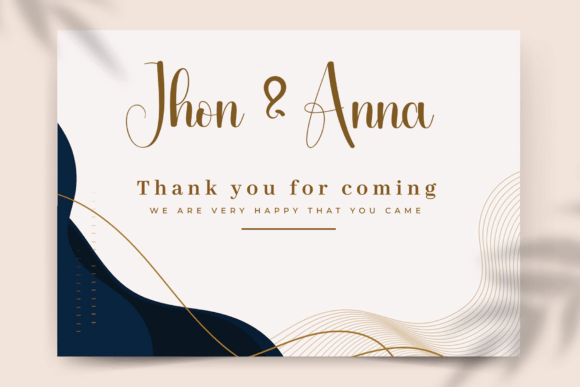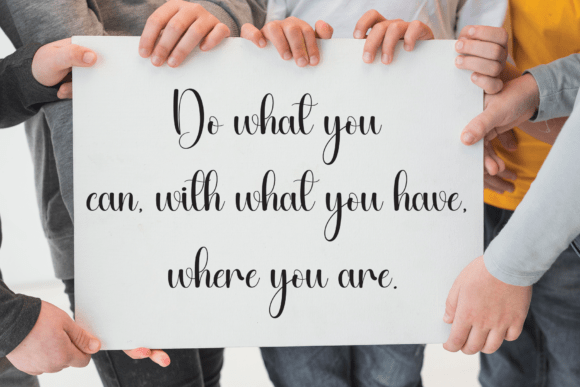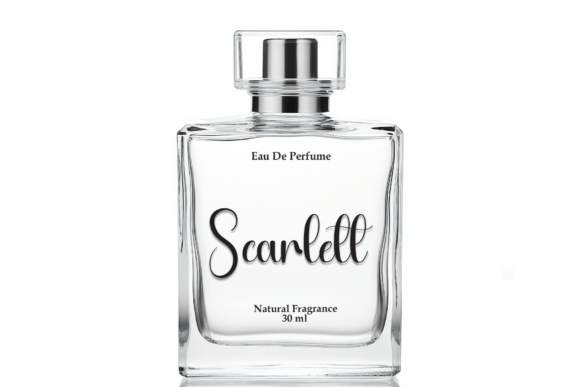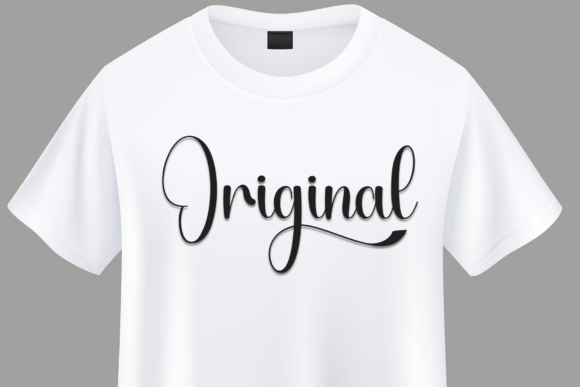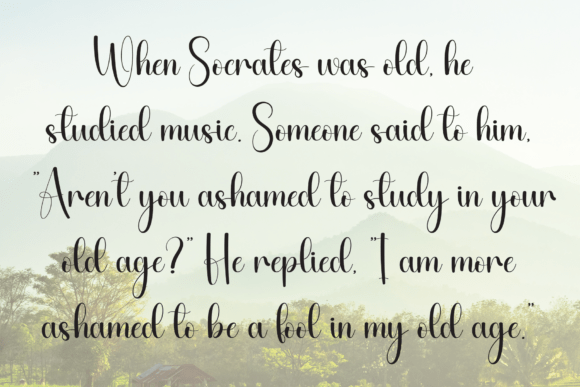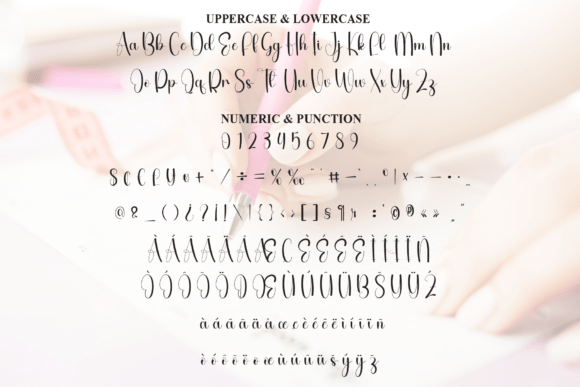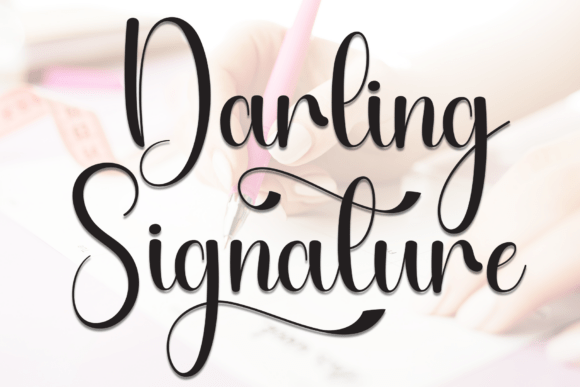
Introducing Darling Signature Font: The Ultimate Choice for Adding a Personal Touch
Are you looking for a font that can instantly elevate your creative projects with a dash of personality and charm? Look no further than the Darling Signature Font, a beautiful handwritten display font that is sure to capture the hearts of designers and crafters alike. With its sweet and playful aesthetic, this font is perfect for crafting stunning wedding invitations, heartwarming cards, and a wide range of designs where a touch of fun and whimsy is needed.
The Essence of Lighthearted Elegance
Darling Signature Font embodies the perfect blend of lighthearted elegance and sophistication, making it an ideal choice for designers who want to add a personal touch to their projects. This font effortlessly infuses life and character into your designs, giving them a unique and inviting flair that is sure to leave a lasting impression. Whether you’re working on a wedding invitation, a greeting card, or a social media graphic, this font is sure to bring a smile to your audience’s faces.
A Font that Shines in Creativity
One of the standout features of Darling Signature Font is its ability to shine in a variety of creative applications. From wedding planners and stationery designers to social media influencers and crafters, this font is perfect for anyone who wants to add a touch of whimsy and fun to their designs. Here are just a few ways you can use Darling Signature Font to take your projects to the next level:
- Wedding Invitations: Create stunning wedding invitations that set the tone for a beautiful and memorable day. With Darling Signature Font, you can add a touch of elegance and sophistication to your wedding stationery.
- Greeting Cards: Design heartwarming greeting cards that will make your loved ones feel special. This font is perfect for creating birthday cards, anniversary cards, and get-well cards that are sure to bring a smile to the recipient’s face.
- Social Media Graphics: Add a touch of personality to your social media graphics with Darling Signature Font. Whether you’re creating a Facebook post, an Instagram story, or a Twitter header, this font is sure to make your content stand out.
- Branding and Packaging: Use Darling Signature Font to create custom branding and packaging that reflects your brand’s personality. This font is perfect for businesses that want to add a touch of whimsy and fun to their branding.
The Unique Mix of Spontaneity and Sophistication
Darling Signature Font is more than just a font – it’s an experience. With its unique mix of spontaneity and sophistication, this font comes alive with each stroke, giving your designs a sense of movement and energy. The font’s handwritten aesthetic gives it a personal and intimate feel, making it perfect for designs where you want to connect with your audience on a deeper level.
Why Choose Darling Signature Font?
So why choose Darling Signature Font over other fonts on the market? Here are just a few reasons why designers and crafters love this font:
- Unique and Eye-Catching: Darling Signature Font is a one-of-a-kind font that is sure to grab attention. Its unique aesthetic makes it perfect for designs where you want to stand out from the crowd.
- Easy to Read: Despite its playful and whimsical aesthetic, Darling Signature Font is easy to read, making it perfect for designs where you need to communicate a message.
- Versatile: This font is incredibly versatile, making it perfect for a wide range of creative applications.
- High-Quality: Darling Signature Font is a high-quality font that is designed to deliver exceptional results.
Get Ready to Fall in Love with Darling Signature Font
If you’re looking for a font that can add a touch of personality and charm to your designs, look no further than Darling Signature Font. With its sweet and playful aesthetic, this font is sure to capture the hearts of designers and crafters alike. So why wait? Download Darling Signature Font today and experience the unique mix of spontaneity and sophistication that comes alive with each stroke!
In conclusion, Darling Signature Font is the perfect choice for designers and crafters who want to add a personal touch to their projects. With its lighthearted elegance, versatility, and high-quality design, this font is sure to become a staple in your design toolkit. So go ahead, give your designs an inviting and smile-sparking flair with Darling Signature Font!